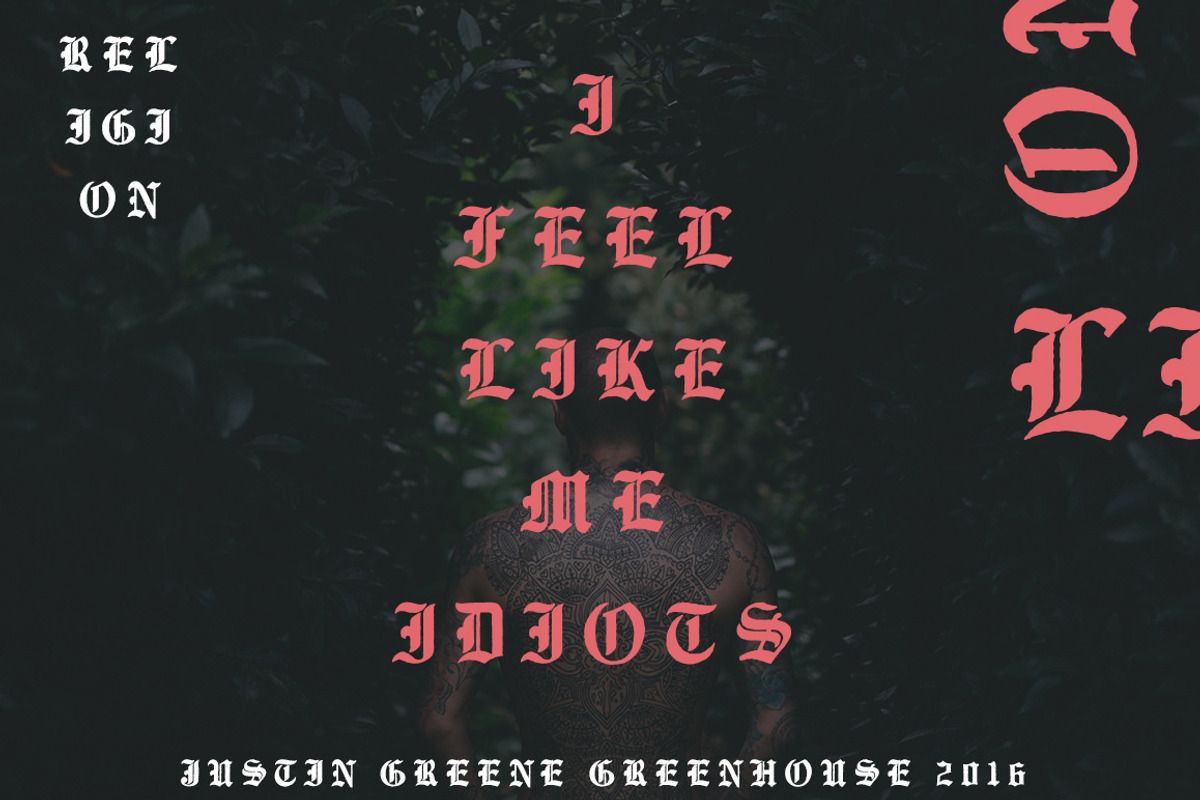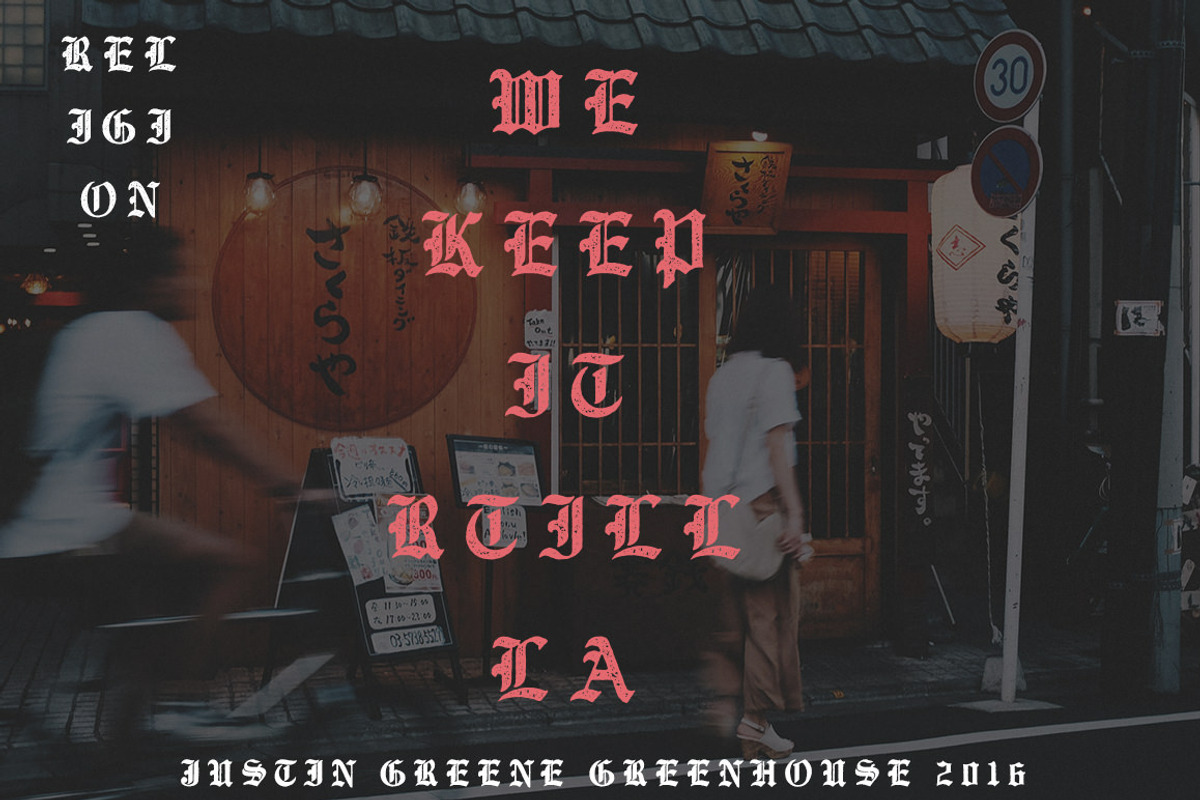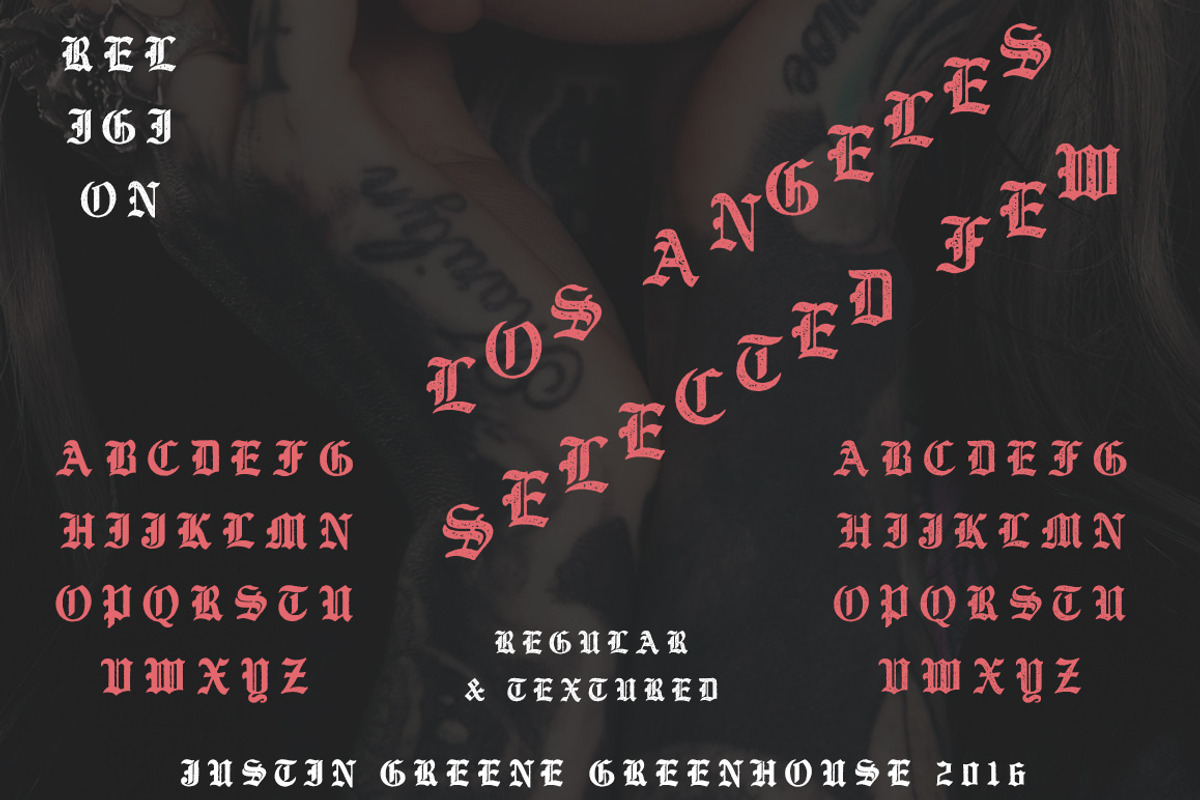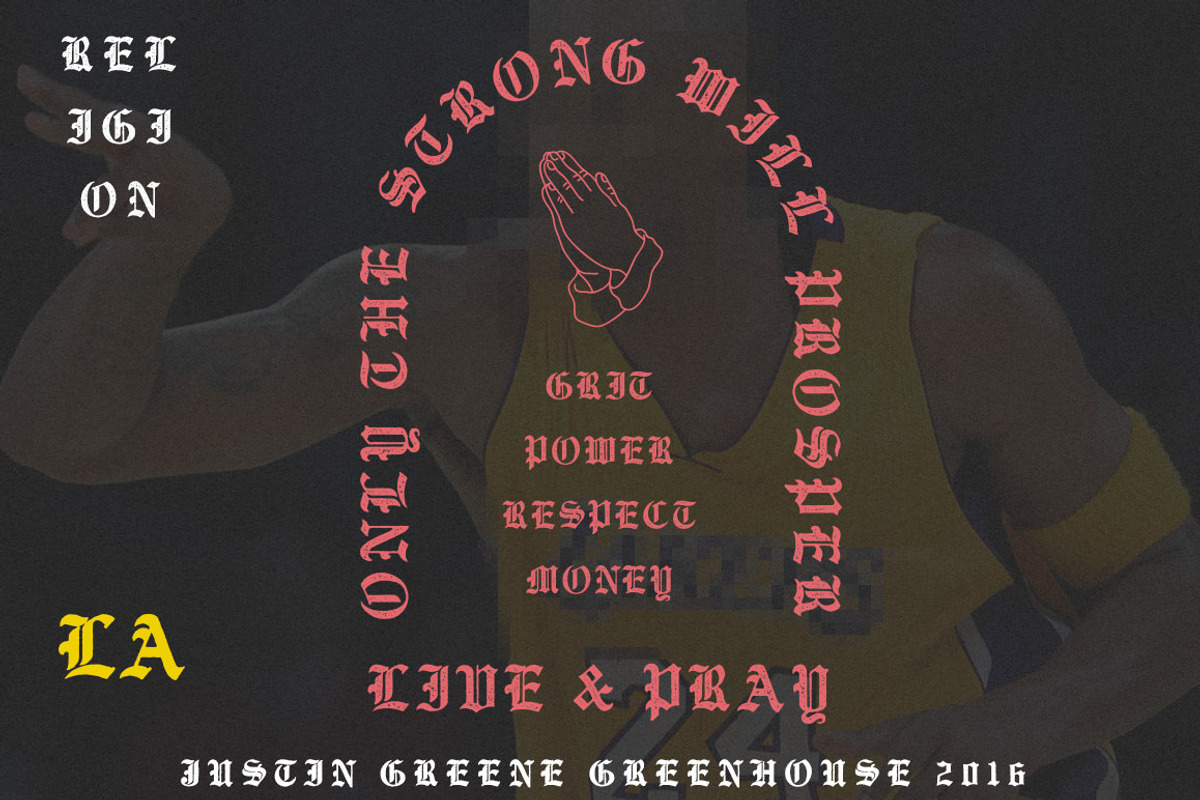
RELIGION ~ Hand Drawn Font
RELIGION ~ Hand Drawn Font by Greenhouse Supply Co is a font selected for branding, posters, packaging, typography.
- As with anything made by Greenhouse, expect only the best, from the kerning to the alternates, down to the smallest details.
- The alternate uppercase characters are perfectly kerned for your use.
Why RELIGION ~ Hand Drawn Font is worth a look
RELIGION ~ Hand Drawn Font by Greenhouse Supply Co fits naturally into Branding, posters, packaging, typography.